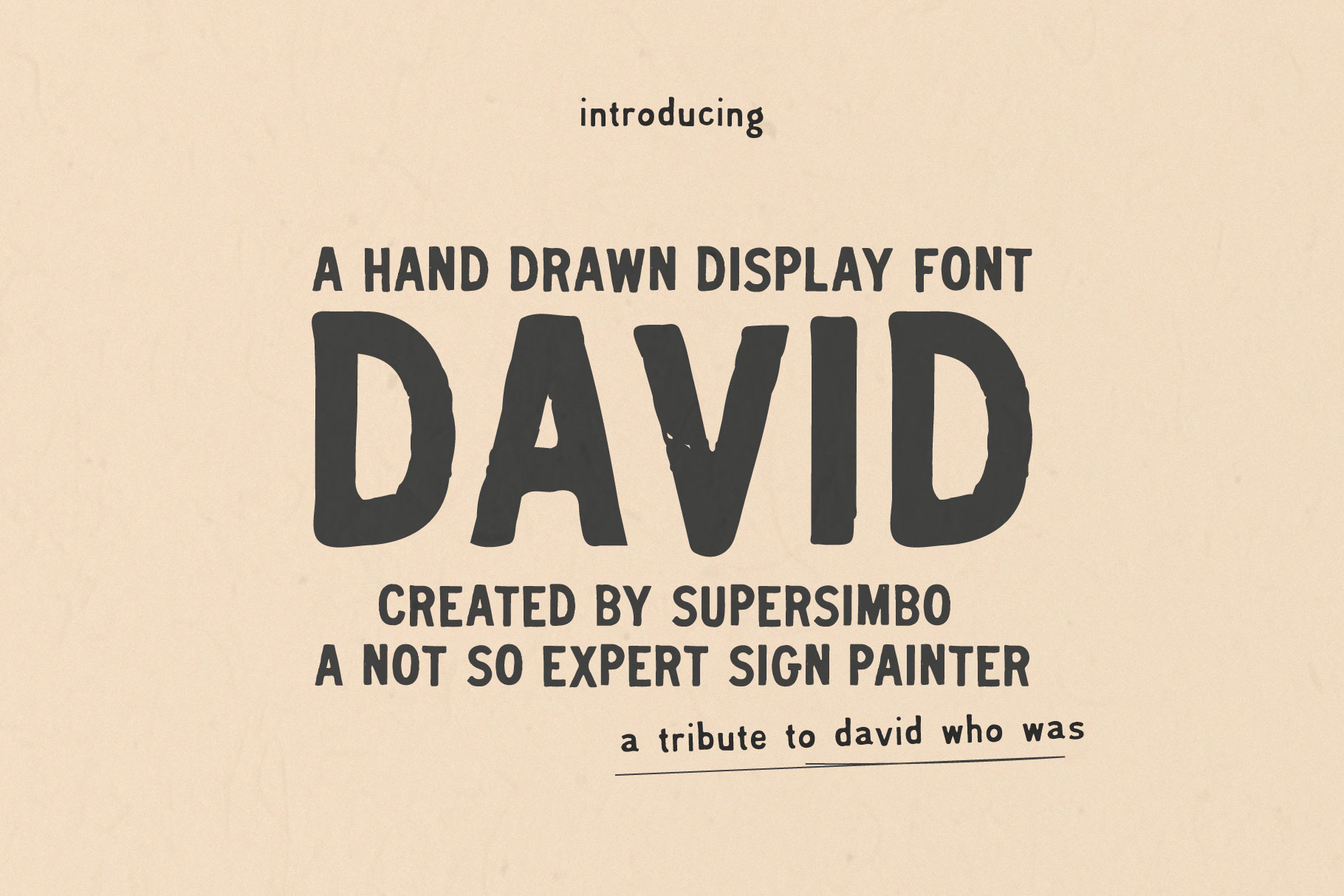
David | Hand Drawn Display Font
David is a hand drawn display font, created by supersimbo, a not so expert sign painter. A tribute to David who was. David painted signs for shops and local business owners all of his adult life, he was my Dads uncle, he was vintage.
This font isn't so straight but you'll love it for your fun projects.